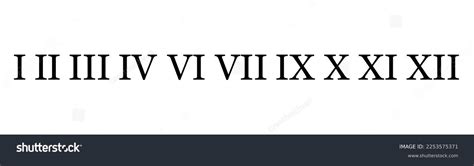
Font Generator Roman Numerals. This number system was invented in ancient rome, and is used today for. Gain access to the most stylish roman numeral fonts completely free.
Web here you can download yourself a copy of the roman numeral font generator for free. Our tool above allows you to convert arabic numerals to roman numerals. Web our roman numeral font generator allows users to create custom designs using various styles and variations of these classical numerical characters. This typeface is fully compatible with both pc and mac computers. Users can adjust parameters such as size, weight,. Web this is in contrast to arabic numerals which is the moden numeric system used throughout the world (0, 1, 2, 3, 4, 5, 6, 7, 8, 9). Web roman numeral font generator free. This number system was invented in ancient rome, and is used today for. Our feature packed roman numeral converter offers unlimited free usage with no signups required. Gain access to the most stylish roman numeral fonts completely free.
Web our roman numeral font generator allows users to create custom designs using various styles and variations of these classical numerical characters. This number system was invented in ancient rome, and is used today for. Web our roman numeral font generator allows users to create custom designs using various styles and variations of these classical numerical characters. Our tool above allows you to convert arabic numerals to roman numerals. Users can adjust parameters such as size, weight,. Our feature packed roman numeral converter offers unlimited free usage with no signups required. Gain access to the most stylish roman numeral fonts completely free. Web here you can download yourself a copy of the roman numeral font generator for free. Web this is in contrast to arabic numerals which is the moden numeric system used throughout the world (0, 1, 2, 3, 4, 5, 6, 7, 8, 9). Web roman numeral font generator free. This typeface is fully compatible with both pc and mac computers.